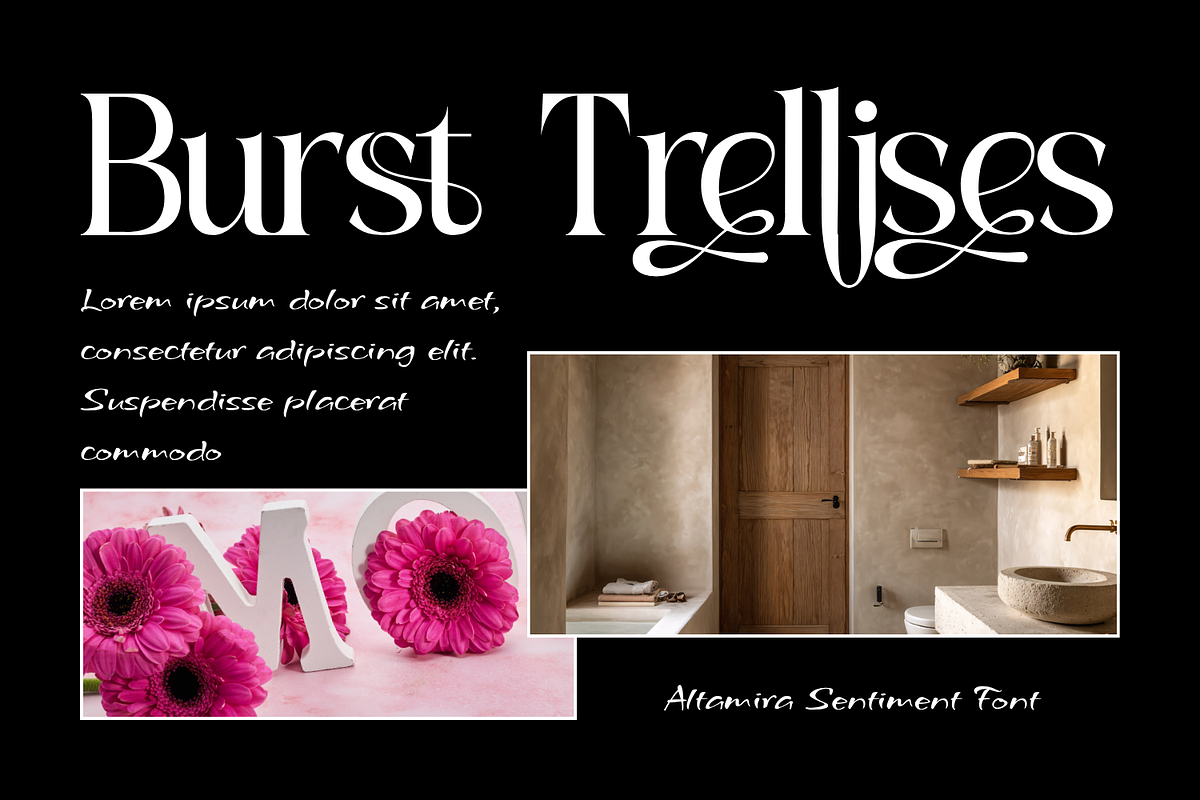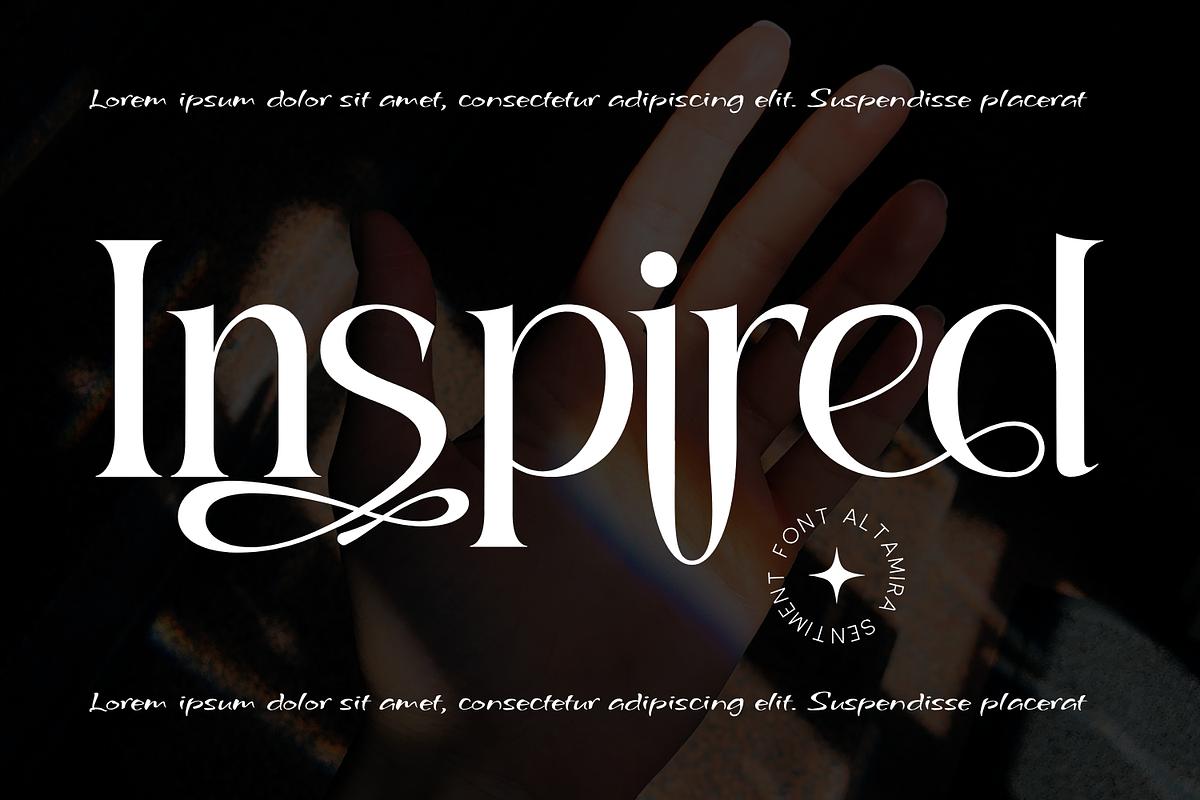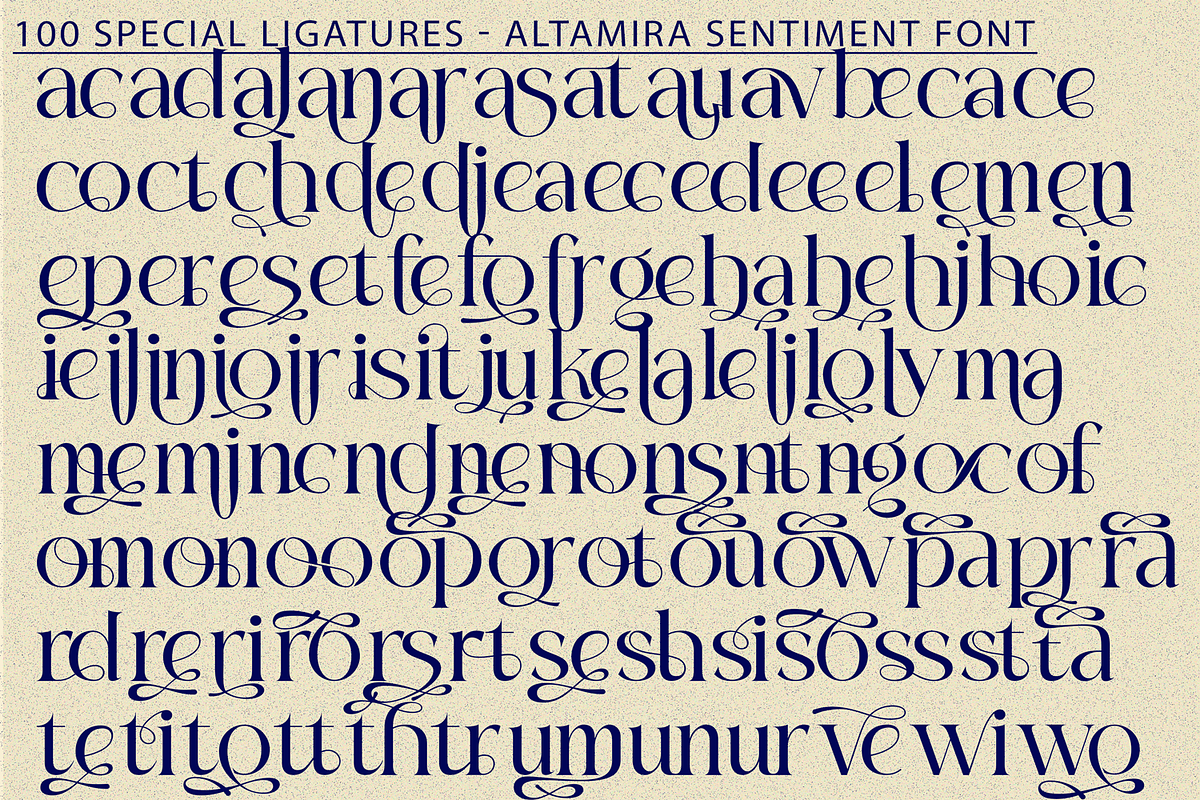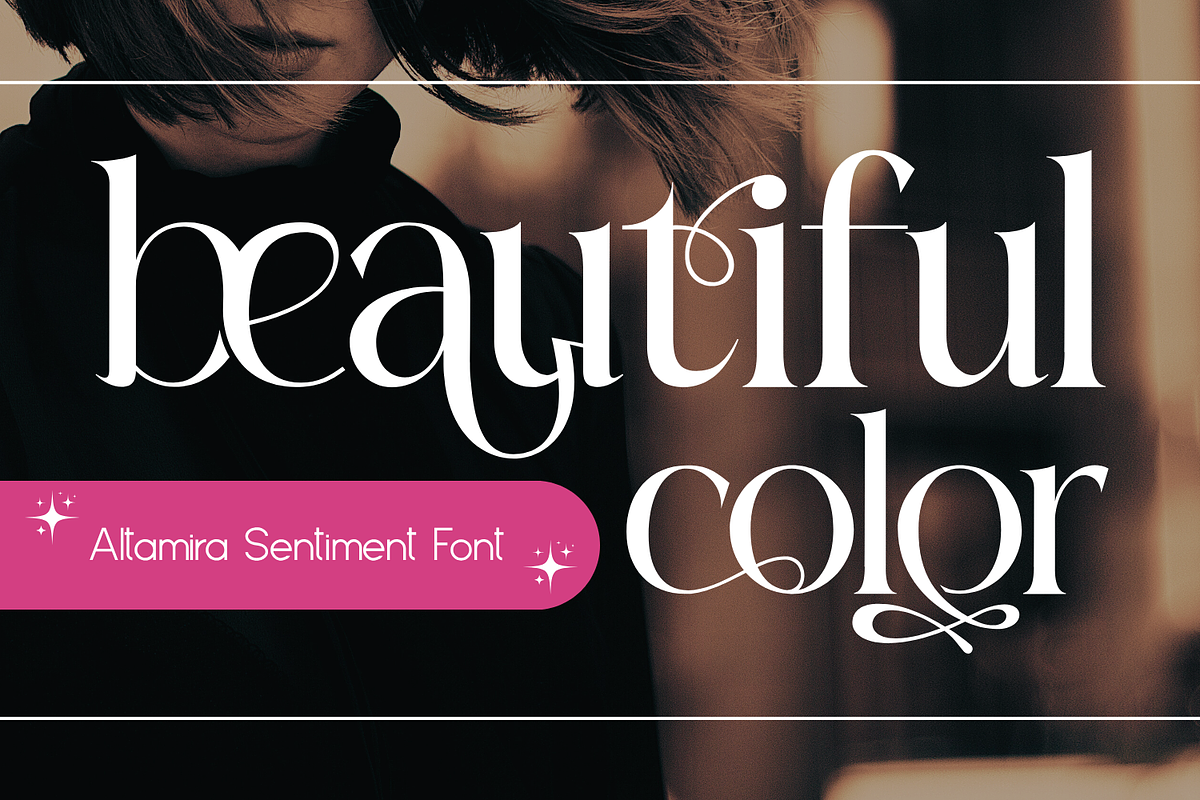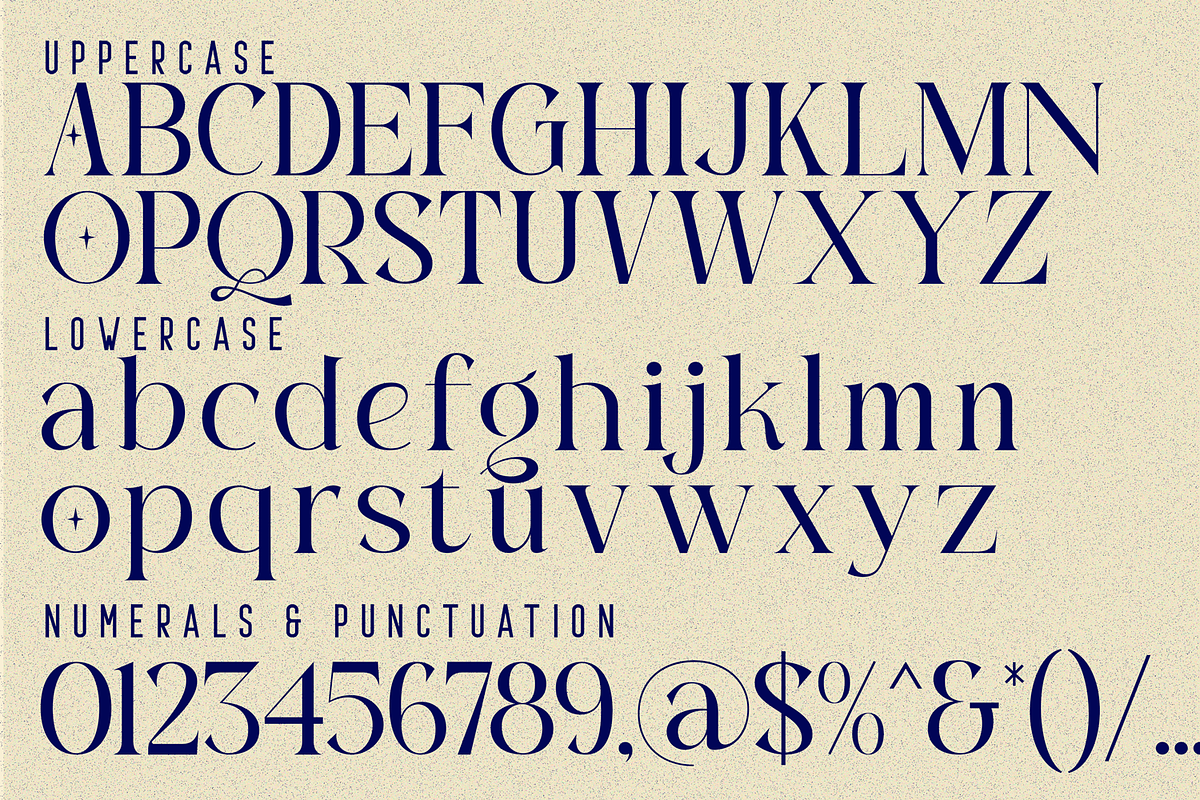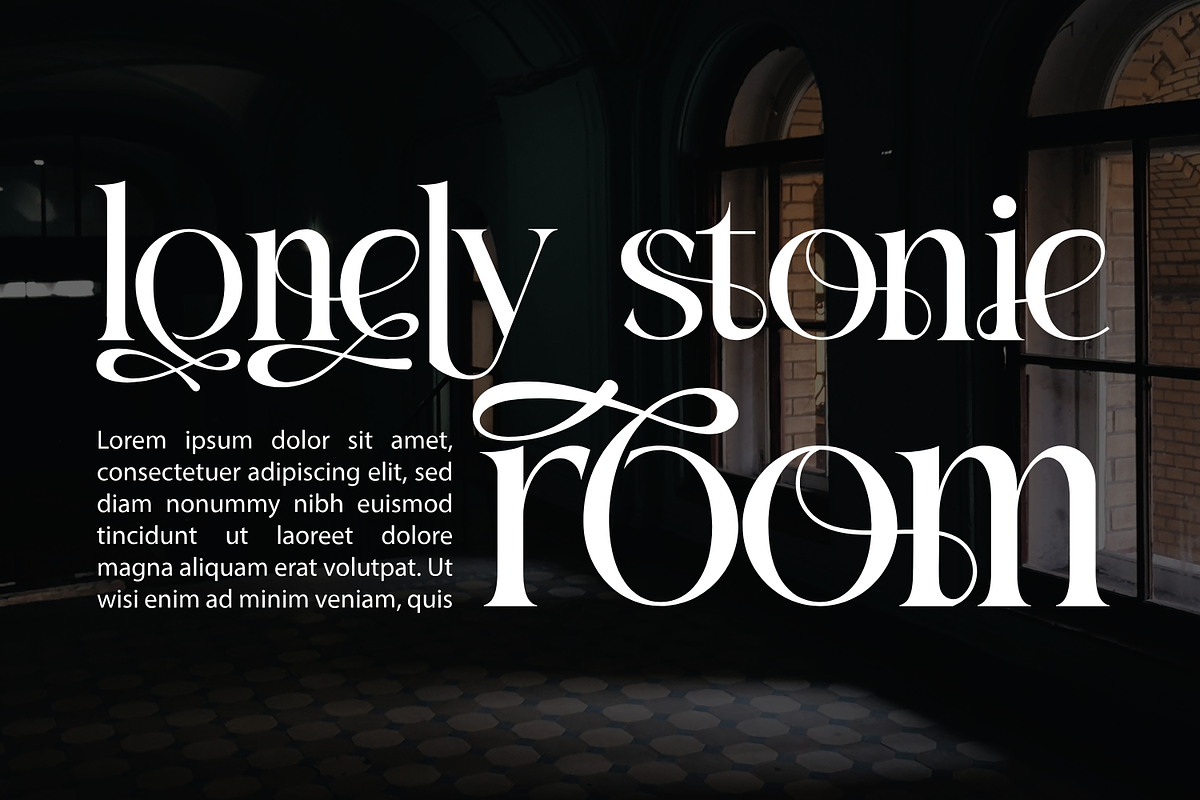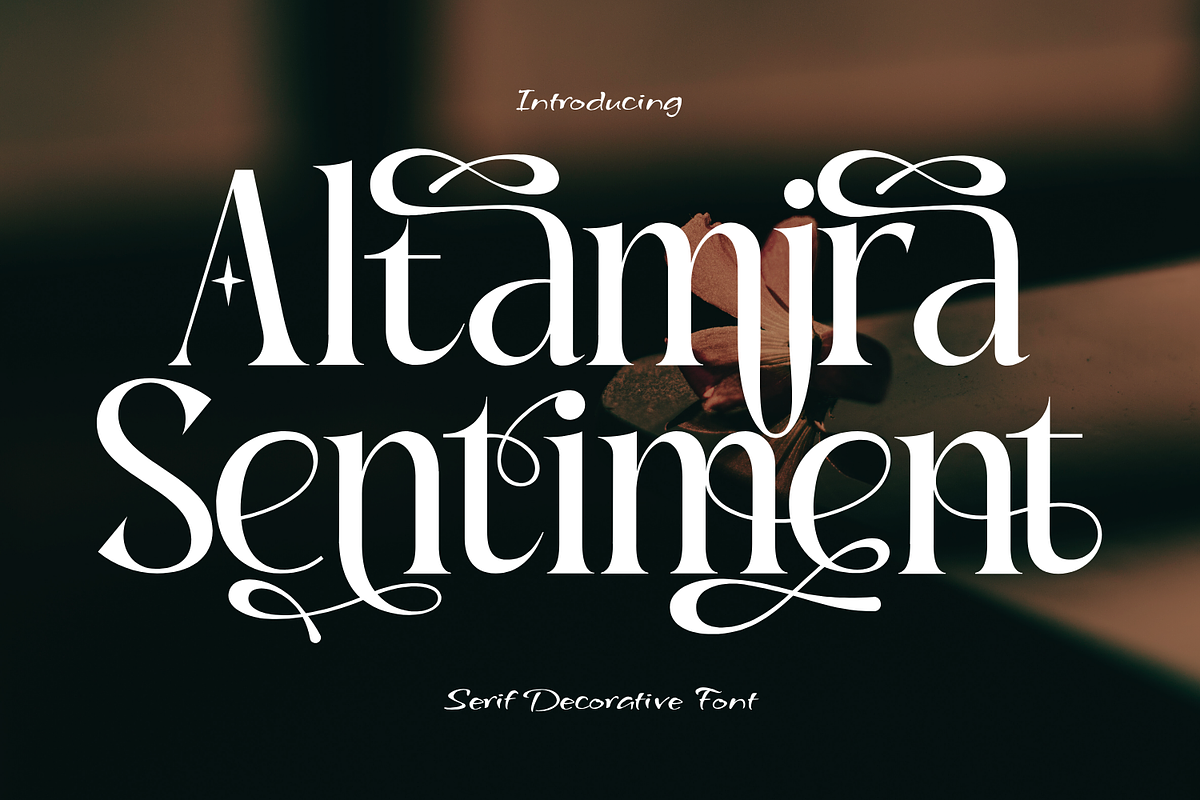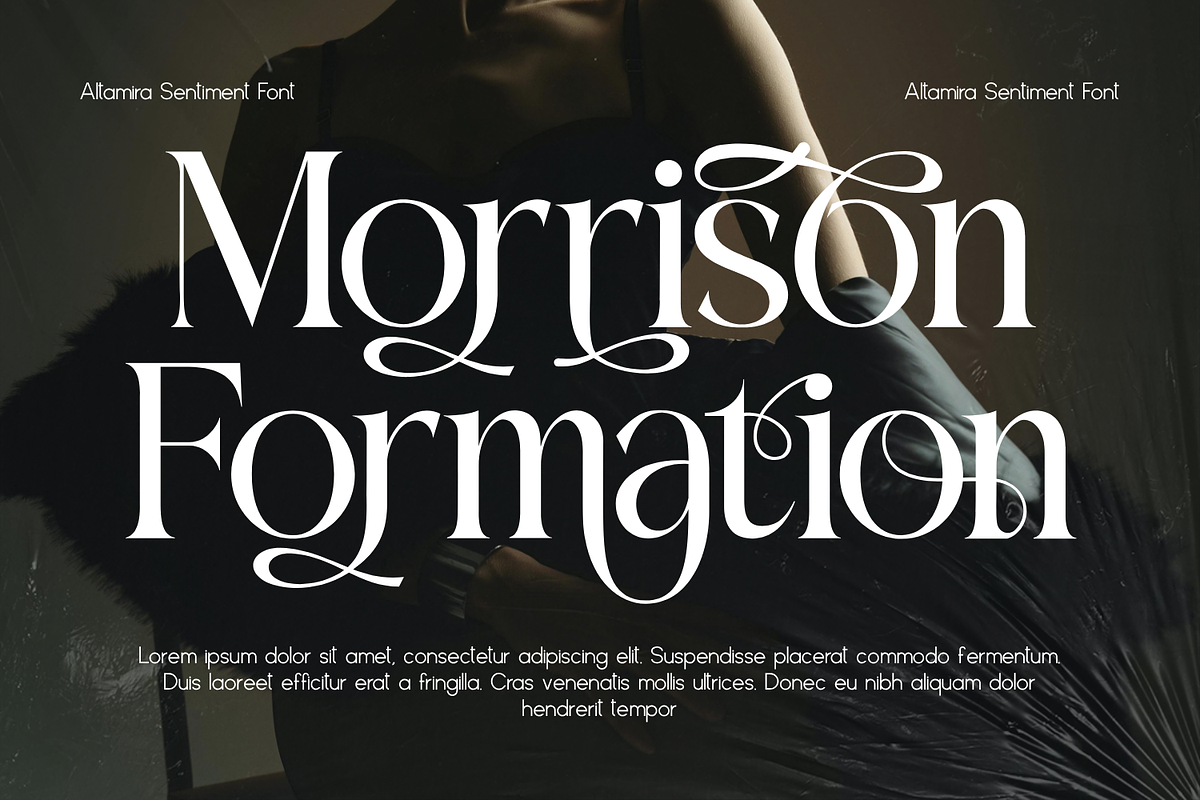
Altamira Sentiment - Elegant Serif
Altamira Sentiment - Elegant Serif Font is a luxurious serif display font that blends classic sophistication with modern flair. Each letterform is crafted with refined curves, elegant contrast, and delicate decorative swashes that bring a sense of romance and artistry to your typography. The design combines sharp serifs with graceful flourishes, evoking timeless beauty and expressive emotion — ideal for projects that require both charm and class.
- Uppercase & Lowercase Letters
- Approximately 100 Special Ligatures for refined letter combinations
- Numerals & Punctuation for complete usability
- Accented Characters for multilingual support
About 100 ligatures combined with Stylistic Alternates Font:
ac ad al an ar as at au av be ca ce ch co ct de di ea ec ed ee el em en ep er es et fe fo fr ge ha he hi ho ie ic il in io ir is it ju ke la le li ll lo ly ma me mi nc nd ne ng no nt ns oc of om on oo op or ot ou ow pa pr ra rd re ri ro rs rt se sh si so ss st ta te th ti to tr tt um un ur ve wi wo